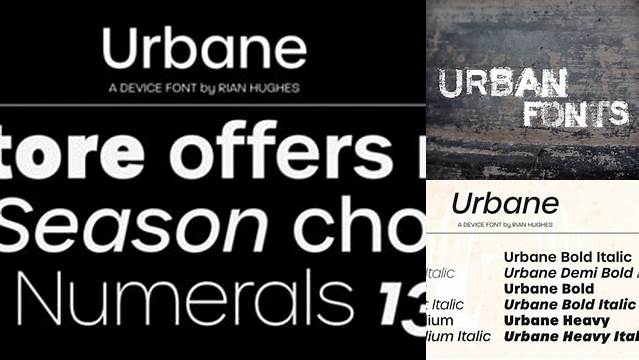
Urbane Font: Free Download Guide & Best Uses
Are you on the hunt for a font that exudes modern sophistication and versatility? Look no further! The Urbane font is a popular choice for designers and creatives alike, known for its clean lines and contemporary appeal. In this comprehensive guide, we'll dive deep into everything you need to know about Urbane font, including where to find it for free, its various styles, and how to best utilize it in your projects. So, let's jump right in and explore the world of Urbane typography!
What Makes Urbane Font So Special?
First off, guys, let's talk about why the Urbane font has garnered so much attention in the design world. This font family is celebrated for its modern, geometric design. Its clean lines and balanced letterforms make it incredibly versatile for a wide range of applications. Whether you're designing a sleek website, a professional brochure, or eye-catching marketing materials, Urbane font can deliver a polished and contemporary look. The versatility of the Urbane font stems from its carefully crafted letterforms, which provide a harmonious balance between readability and aesthetic appeal. It's not just about looking good; it’s about communicating effectively. The precise geometry of the letters ensures that your message is conveyed with clarity and style. Designers often choose Urbane for its ability to maintain a strong visual presence without overwhelming the overall design. Its simplicity is its strength, allowing it to pair well with other fonts and graphic elements. Moreover, the Urbane font family typically includes a range of weights and styles, from light and elegant to bold and impactful, giving designers the flexibility to create visual hierarchy and emphasis within their designs. This adaptability makes it an excellent choice for projects that require a consistent yet dynamic typographic approach. Think about how Urbane can elevate your brand's identity, creating a visual language that speaks to your target audience. The font's modern aesthetic is perfect for businesses looking to project an image of innovation and sophistication. From startups to established corporations, Urbane offers a timeless quality that can help your brand stand out in a crowded marketplace. Its clean, minimalist design aligns well with contemporary design trends, ensuring that your projects look fresh and relevant. Furthermore, the Urbane font's legibility is a crucial factor in its widespread adoption. Clear, easy-to-read typography is essential for effective communication, especially in digital environments. Whether it's on a website, mobile app, or social media graphic, Urbane ensures that your message is accessible and engaging. In print, its crisp lines and distinct letterforms make it ideal for brochures, posters, and other marketing collateral. So, if you're aiming for a font that combines modern elegance with practical usability, Urbane is definitely worth considering. It’s a design tool that can help you achieve a professional and polished look, no matter the project.
Exploring Urbane Font Styles and Weights
Now that we've covered where to find the font, let's get into the nitty-gritty of Urbane font styles and weights. Understanding the different variations available within a font family is key to using it effectively in your designs. The Urbane font, like many modern typefaces, typically comes in a range of weights, from light to bold, and may also include variations such as italics or condensed versions. These variations provide designers with the flexibility to create visual hierarchy and emphasis within their text. Let’s dive deeper into what these styles and weights entail and how you can leverage them in your projects. The most common weights you'll find in the Urbane font family are Light, Regular, Medium, Bold, and Extra Bold (or Black). Each weight serves a specific purpose in your design. Light weights are often used for body text or secondary elements where a delicate and subtle appearance is desired. The thin strokes of the Light weight create an airy and elegant feel, making it suitable for designs that require a touch of sophistication. Regular weight is the workhorse of the font family, providing a balanced and legible option for most text applications. It’s ideal for body text, captions, and other situations where readability is paramount. Regular weight ensures that your message is clear and accessible without being visually overwhelming. Medium weight strikes a balance between Regular and Bold, offering a slightly more assertive presence without being as heavy as the Bold weight. It's a great choice for subheadings, callouts, and other elements that need to stand out a bit more from the body text. Medium weight adds a touch of emphasis while maintaining a clean and modern look. Bold weight is designed to grab attention. It's perfect for headlines, titles, and other prominent elements that need to make a strong visual impact. The thicker strokes of the Bold weight create a sense of importance and urgency, making it ideal for conveying key messages. Extra Bold (or Black) weight is the heaviest option in the Urbane font family, reserved for situations where maximum impact is needed. Use it sparingly for headlines or short phrases that you want to command attention. Extra Bold weight is a powerful tool for creating a strong visual statement. In addition to weights, many Urbane-like fonts also include italic versions. Italics are slanted versions of the regular typeface, used for emphasis, quotes, or to differentiate certain text elements. Italic styles add a touch of elegance and sophistication, making them suitable for callouts, captions, and other situations where a subtle yet distinct visual cue is needed. Some Urbane font families may also include condensed or extended versions. Condensed fonts are narrower than the regular typeface, allowing you to fit more text into a limited space. They’re useful for headlines or labels where space is a constraint. Extended fonts, on the other hand, are wider than the regular typeface, creating a more expansive and open feel. They can be used for headlines or to add a unique visual element to your design. When choosing the right style and weight for your project, consider the overall tone and message you want to convey. A Light weight might be perfect for a minimalist design, while a Bold weight is better suited for a more assertive and impactful layout. Experiment with different combinations of weights and styles to create visual hierarchy and guide the reader's eye through your design. By understanding the nuances of Urbane font styles and weights, you can make informed decisions that enhance the effectiveness and aesthetic appeal of your designs.
How to Use Urbane Font in Your Design Projects
Alright, guys, so you've got your Urbane font (or a similar alternative) ready to go. Now, the big question: How do you actually use it in your design projects to make them shine? Using a font effectively is about more than just picking something that looks nice; it's about considering how the font interacts with other elements, conveys your message, and fits the overall aesthetic of your project. Let's explore some practical tips and best practices for incorporating Urbane font into your designs. First and foremost, consider the context of your project. Are you designing a website, a brochure, a logo, or something else? The best use of Urbane font will vary depending on the medium and the message you're trying to communicate. For websites, readability is key. Urbane font's clean, geometric design makes it a great choice for body text, headlines, and navigation menus. Use lighter weights for body text to ensure ease of reading, and heavier weights for headlines to create visual hierarchy. Ensure that your font size is appropriate for different screen sizes and devices to maintain legibility across all platforms. In print, Urbane font can be used effectively in a variety of applications, from brochures and flyers to posters and business cards. The font's modern aesthetic lends itself well to corporate materials, marketing collateral, and editorial layouts. Experiment with different weights and styles to create visual interest and guide the reader's eye through your design. For logos and branding, Urbane font can convey a sense of modernity, sophistication, and trustworthiness. Its clean lines and geometric shapes make it a versatile choice for a wide range of industries. Consider using a bold weight for a strong, impactful logo, or a lighter weight for a more subtle and elegant look. Pairing fonts effectively is another crucial aspect of using Urbane font in your designs. While Urbane can certainly stand on its own, combining it with other fonts can add depth and visual interest to your projects. A classic pairing is Urbane with a serif font for body text. The contrast between the sans-serif Urbane and a serif font like Garamond or Times New Roman can create a balanced and harmonious look. Another approach is to pair Urbane with a more expressive or decorative font for headlines or callouts. This can add a touch of personality and visual flair to your design while maintaining overall readability. When choosing a font pairing, consider the tone and message you want to convey. A combination of Urbane and a traditional serif font might be suitable for a professional and trustworthy brand, while a pairing with a more playful font could be a good choice for a creative or youthful brand. White space, also known as negative space, is your friend when working with Urbane font. Ample white space around text can improve readability and create a clean, uncluttered design. Avoid overcrowding your layout with too much text or graphics, and allow the Urbane font to breathe. Line height and letter spacing are also important factors to consider. Adjust the line height (leading) and letter spacing (tracking) to optimize readability and visual appeal. A line height that is too tight can make text feel cramped, while a line height that is too loose can make text feel disjointed. Experiment with different settings to find the right balance for your design. Consistency is key when using Urbane font across your projects. Establish a clear typographic hierarchy and stick to it throughout your design. Use the same weights and styles consistently to create a cohesive and professional look. By following these tips and best practices, you can effectively incorporate Urbane font into your design projects and create visually appealing and impactful designs.
Conclusion: Embrace the Versatility of Urbane Font
In conclusion, guys, the Urbane font is a fantastic choice for anyone seeking a modern, versatile, and visually appealing typeface. Its clean lines and geometric design make it suitable for a wide range of applications, from websites and branding to print materials and more. Whether you're looking for Urbane font free download options or considering purchasing a premium version, understanding its styles, weights, and how to use it effectively is crucial for creating impactful designs. Remember to explore reputable sources for free fonts, experiment with different font pairings, and always prioritize readability and visual hierarchy in your designs. Embrace the versatility of Urbane font, and let it elevate your projects to new heights! Happy designing!